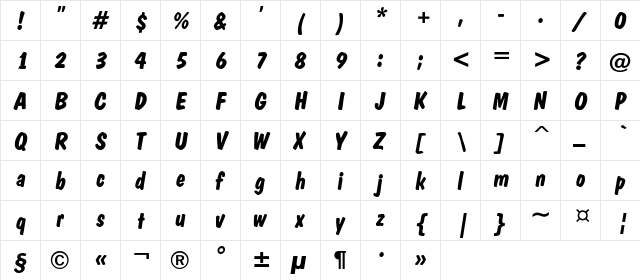
a_DomIno BoldItalic
Design Context for a_DomIno Typeface
a_DomIno takes a measured approach to typography — its balanced proportions and neutral character make it a reliable workhorse for both digital and print work. The slanted form adds forward momentum and visual energy. The heavy weight commands attention and anchors typographic hierarchies.
Pro Tip: Use a_DomIno for emphasis, pull quotes, and subheadings where its slanted energy can add rhythm to the layout.